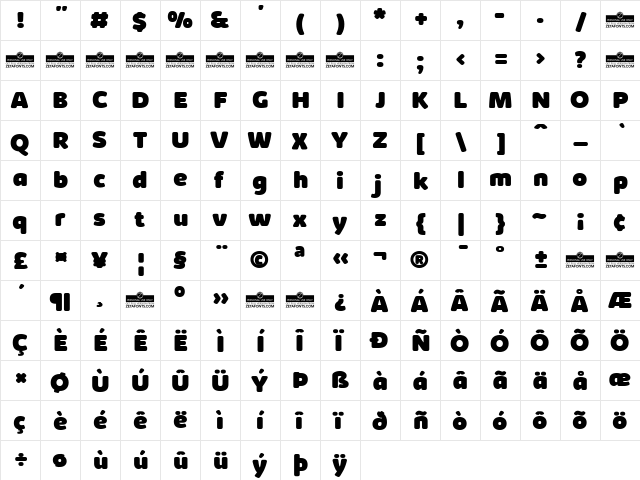
Kabrio Soft Heavy
| Foundry | studio kmzero |
| Designer | Corimo Lorenzo Pancini |
Design Context for Kabrio Soft Typeface
Kabrio Soft offers clean, dependable letterforms without strong stylistic allegiance, making it a practical choice for designers who need flexibility.